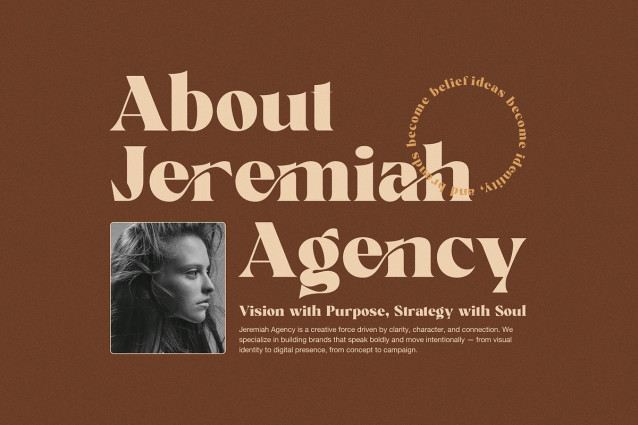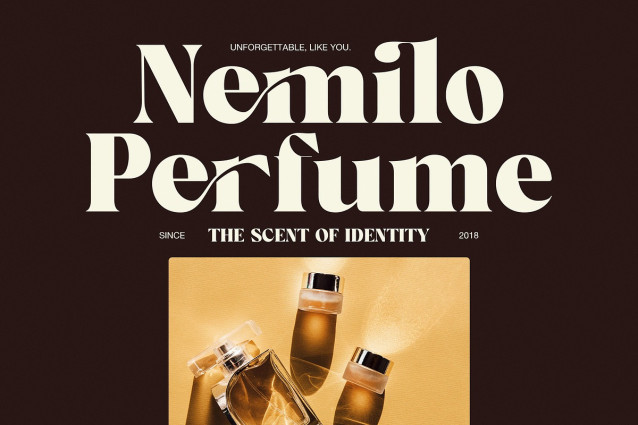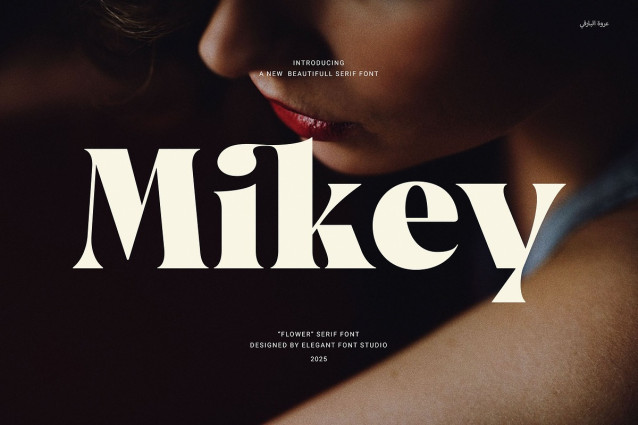
Mikey Font
Mikey Font – Elegant Serif Font is a modern serif typeface designed to add class and clarity to your visual content. With smooth curves and perfectly balanced letterforms, Mikey delivers both elegance and readability—making it ideal for any creative or professional project.
This font was created with branding in mind. Its proportional structure ensures consistency across layouts, while the included functional ligatures give your text a more dynamic and stylish appearance. These subtle design enhancements help elevate your message and set your work apart.